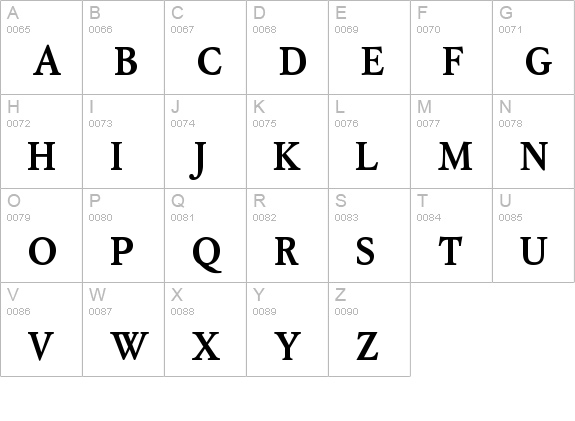
PM Mysl Bold Cyrillic Font Details
PM Mysl Bold Cyrillic is a strong, high-contrast variant in the PM typeface family \xE2\x80\x94 well suited to headlines, attention-grabbing titles, and strong calls-to-action.
PM Mysl Bold Cyrillic is a modern and stylish font that exudes sophistication and elegance. With its bold and eye-catching design, this typeface is perfect for headlines, titles, and other attention-grabbing text. The Cyrillic characters add a unique touch to any project, making it stand out from the crowd. What makes PM Mysl Bold Cyrillic even more appealing is that it is available for free download at FontsMarket.com. This means that you can easily access and use this stunning font for personal and commercial projects without any cost. Take advantage of this opportunity to enhance your designs with the beauty and versatility of PM Mysl Bold Cyrillic font.